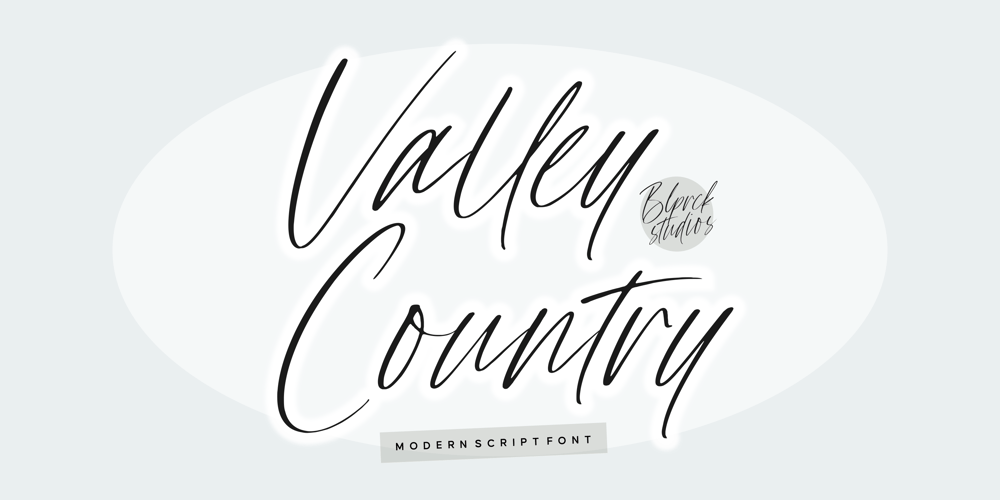
Valley Country
Valley Country font
Valley Country Font Family was designed by Restu Angga and published by Balpirick. Valley Country contains 1 styles and family package options. Valley Country is a Modern Script Font.Valley Country Script is an enchanting handwritten font. This versatile script font has a wide spectrum of applications ranging from greeting cards to headlines and is guaranteed to add a romantic feel to your next project.Valley Country also multilingual support.Enjoy the font, feel free to comment or feedback, send me PM or email.Thank you!